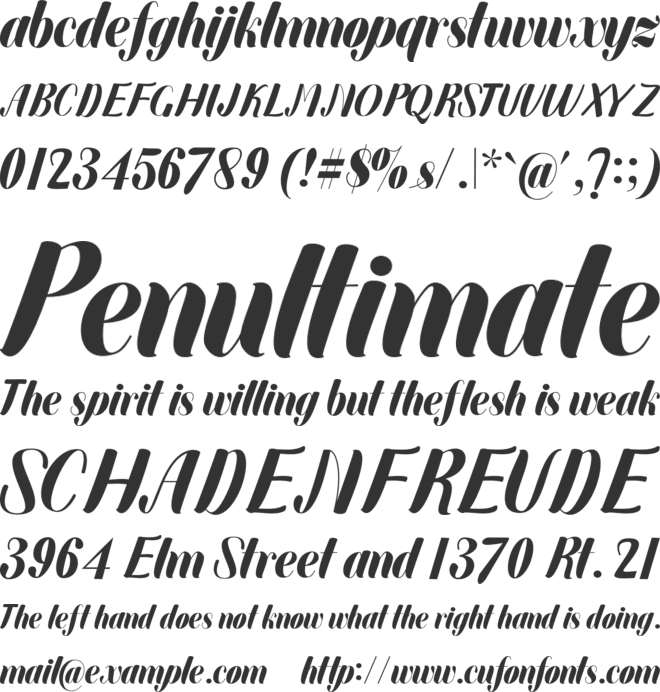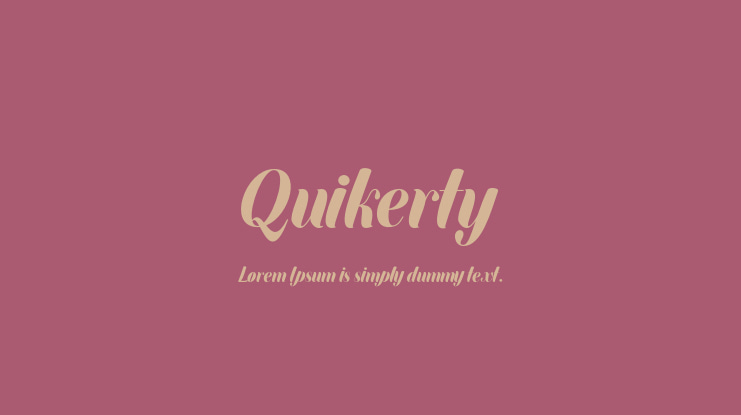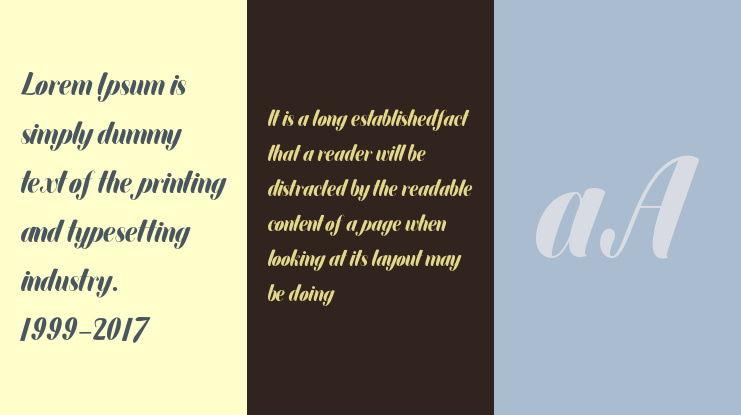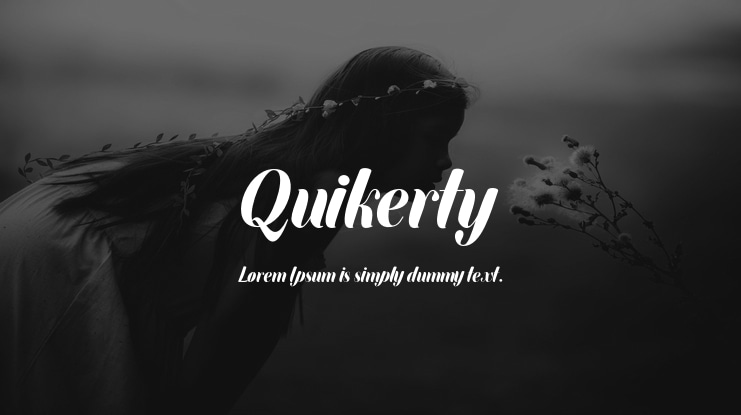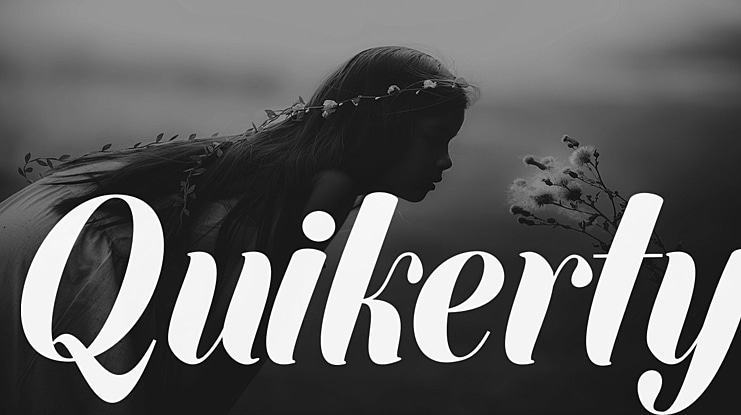
Quikerty Font
Quikerty is an exquisitely handwritten font, expertly designed to be a true favorite. It maintains a classy calligraphic influence while feeling contemporary and fresh. Fall in love with it and take your projects to the highest level! This font is PUA coded which means you can access all glyphs with ease! It features varied baselines, smooth lines, gorgeous glyphs and stunning alternatives.
Quikerty font preview
Quikerty Regular font